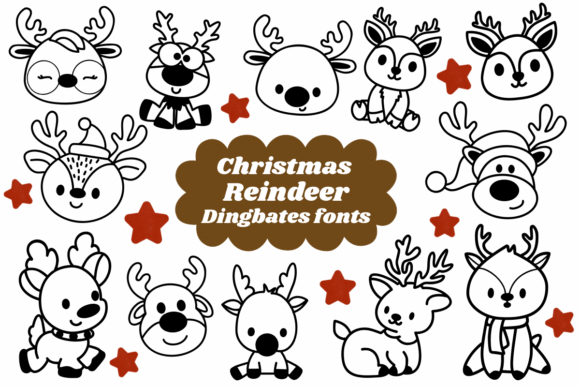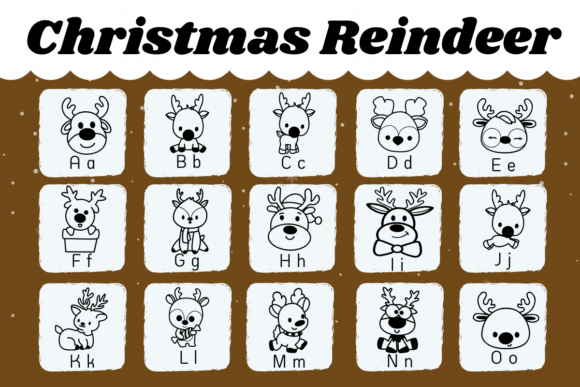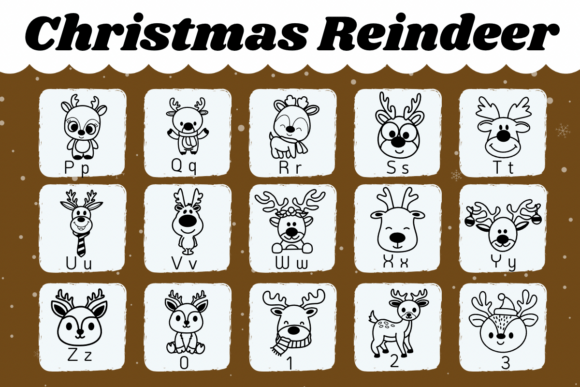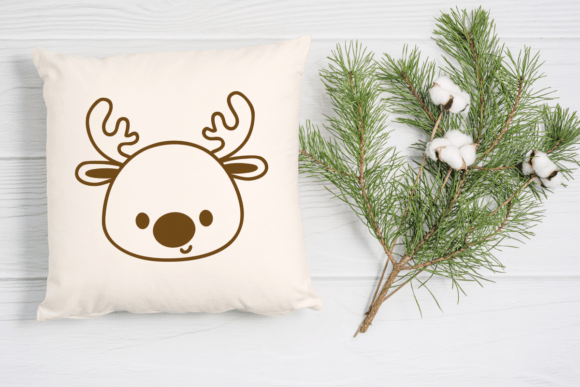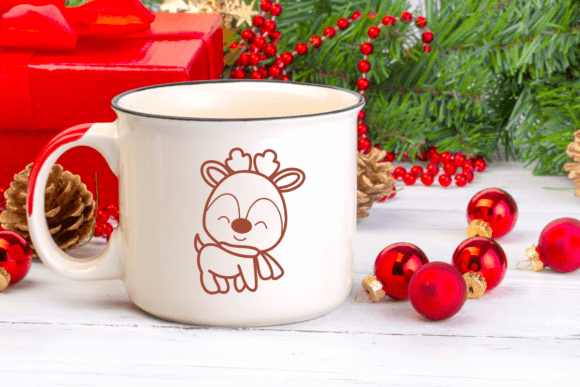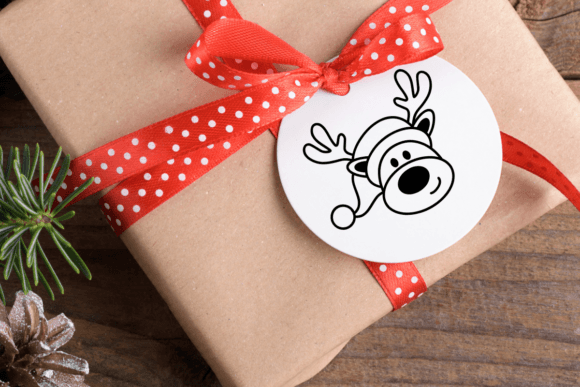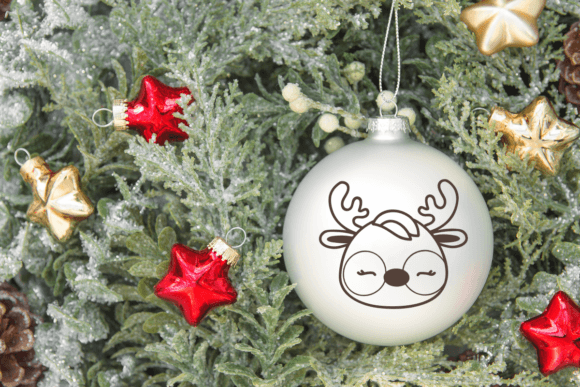
Christmas Reindeer Font
Christmas Reindeer Dingbat Font features festive, fun reindeer illustrations perfect for holiday designs. Each symbol in this font shows a different reindeer in a playful, decorative style, ideal for adding a cheerful touch to your Christmas projects.